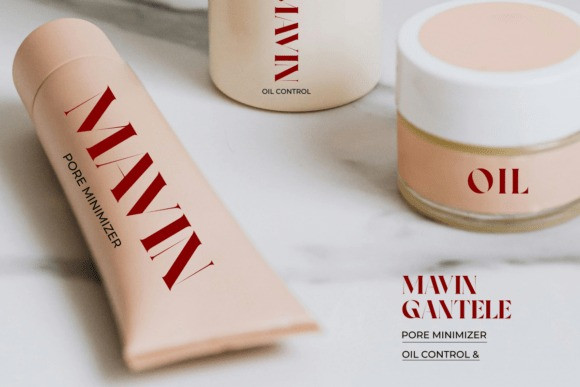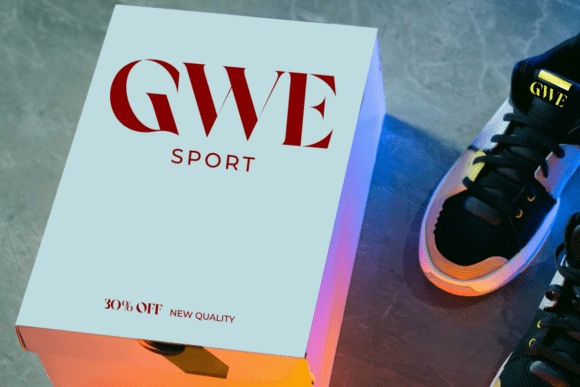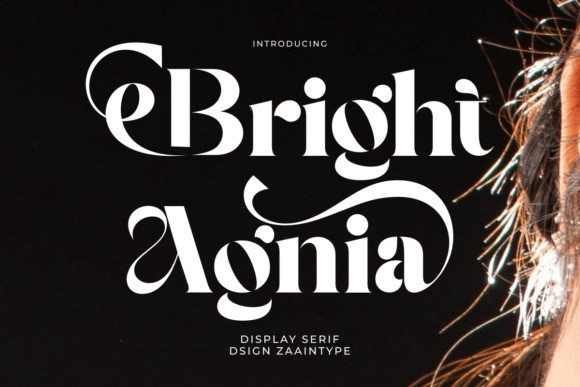
Bright Agnia Font
Bright Agnia Font is a serif font that blends traditional elegance with a dynamic modern feel. With balanced proportions and refined serif details, this font delivers a luxurious, professional, and highly distinctive look.
Available in two styles:
Regular – A classic and elegant appearance, perfect for body text, editorials, and branding.
Oblique – A slanted version that adds a bold and dynamic touch, ideal for more expressive designs